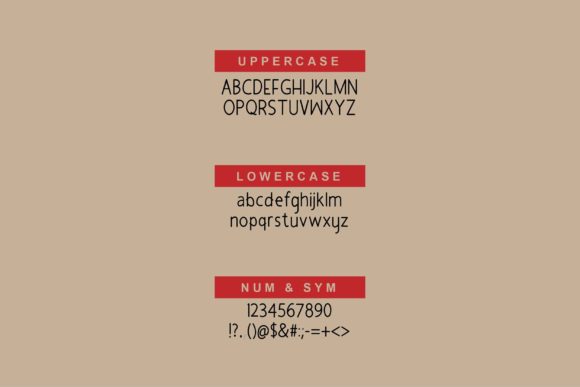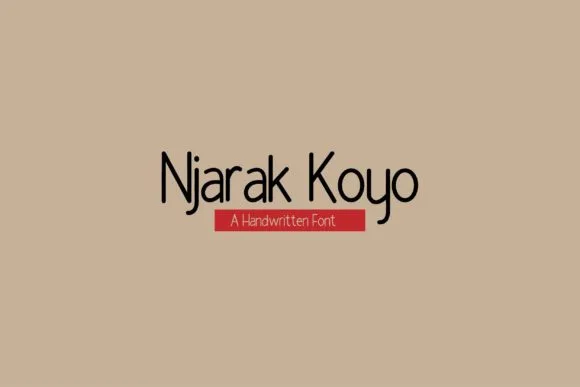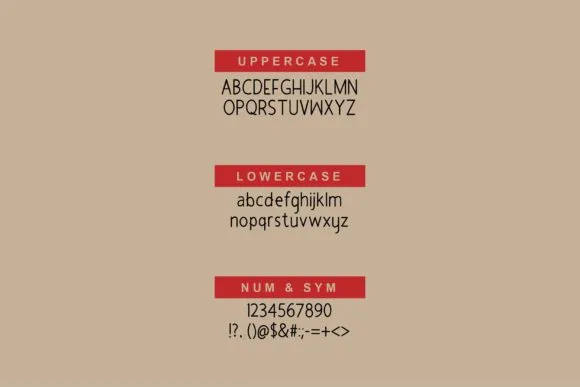
Njarak Koyo Font
About Njarak Koyo Font
Njarak Koyo is a cute and simple handwritten font. No matter the topic, this font will be an incredible asset to your fonts’ library, as it has the potential to elevate any creation.